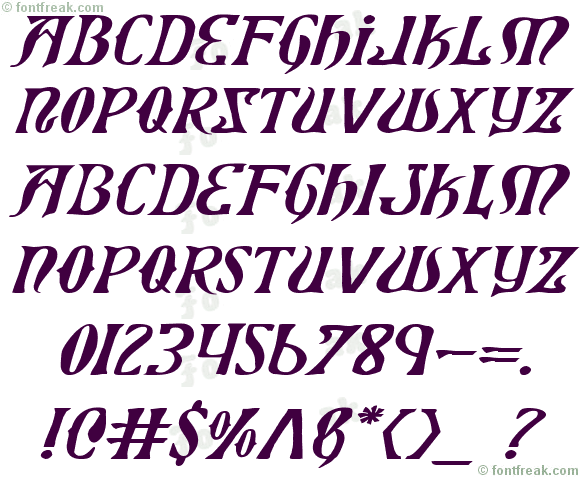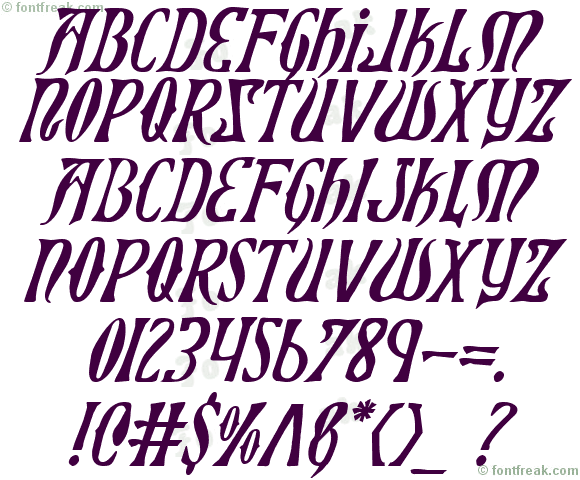
The Xiphos font by Iconian Fonts is a striking display typeface that captures attention with its unique design. As a decorative font, it features an eye-catching blend of condensed and expanded styles, offering versatility in its application. The stroke weight varies, creating a dynamic contrast that enhances its visual appeal. The font’s design incorporates elements that evoke a sense of fantasy and horror, making it particularly suited for projects needing a dramatic flair.
Xiphos is characterized by its bold angular shapes and intricate details that resemble medieval weaponry, which adds an adventurous touch to any design. The spacing between characters is well-balanced, ensuring readability while maintaining a visually engaging presence. This font is perfect for a variety of creative applications, including movie posters that aim to evoke suspense, college event flyers that require a bold statement, and restaurant menus that seek to convey a unique thematic experience. Additionally, it can work wonderfully for graphic novels or horror-themed merchandise, appealing to audiences who appreciate a touch of the unconventional.
What sets the Xiphos font apart is its ability to balance drama with readability, making it a standout choice for a variety of creative endeavors. Whether you’re designing for print or digital media, this font adds an element of intrigue and personality, ensuring your work remains memorable.